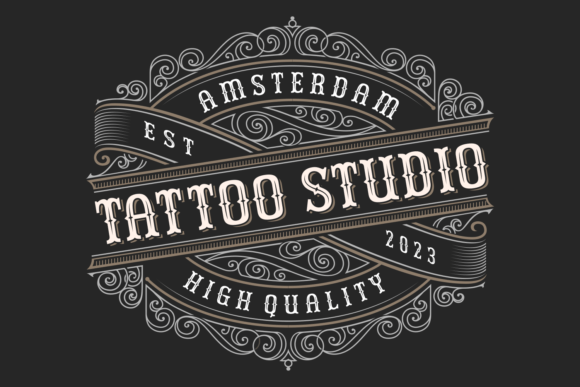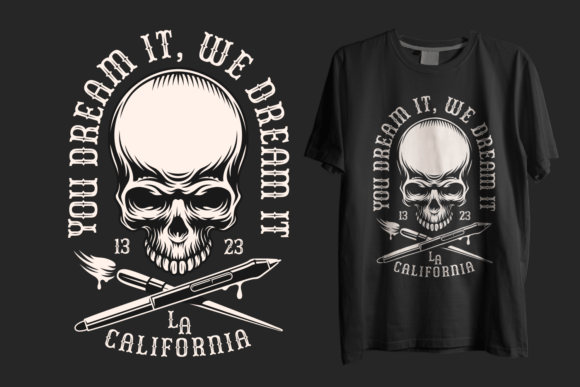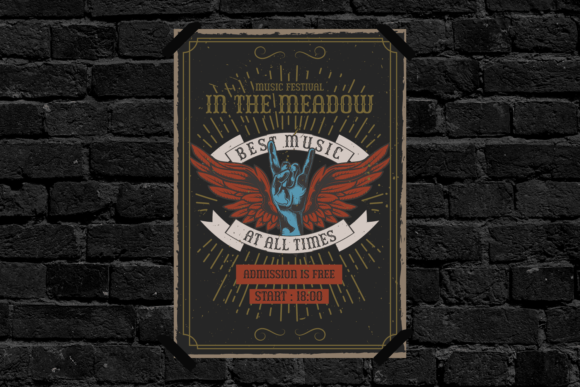
Introduction to Shadow Hunter Font
Shadow Hunter is an excellent blackletter font.
Add a striking look to your typography designs with this outstanding typeface that will take your project to the highest level It looks fabulous on posters, advertisements, logos, t-shirts, headers, titles, and more.
Key Features of Shadow Hunter Font
Why Choose Shadow Hunter Font?
Shadow Hunter Font offers exceptional quality and versatility, making it a valuable addition to your design toolkit. Whether you’re creating for personal projects or commercial use, Shadow Hunter Font delivers professional results.